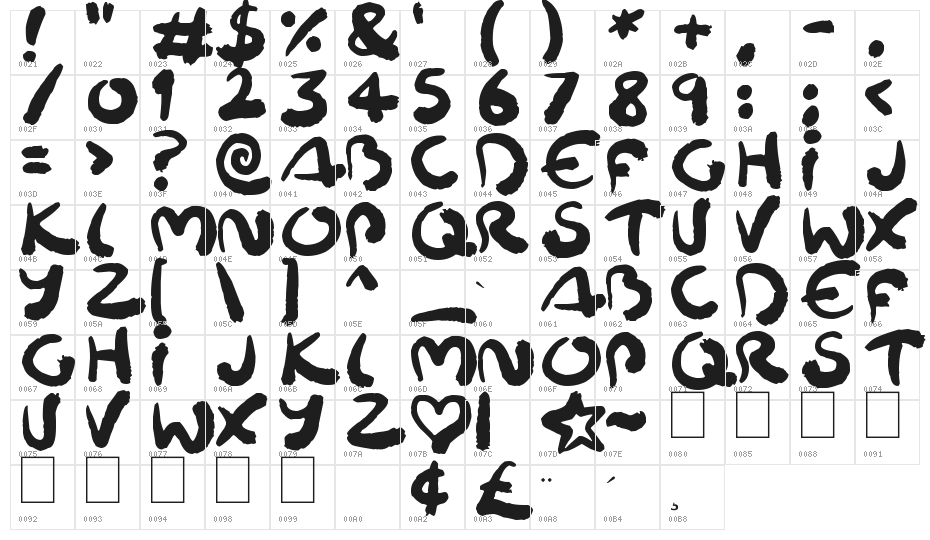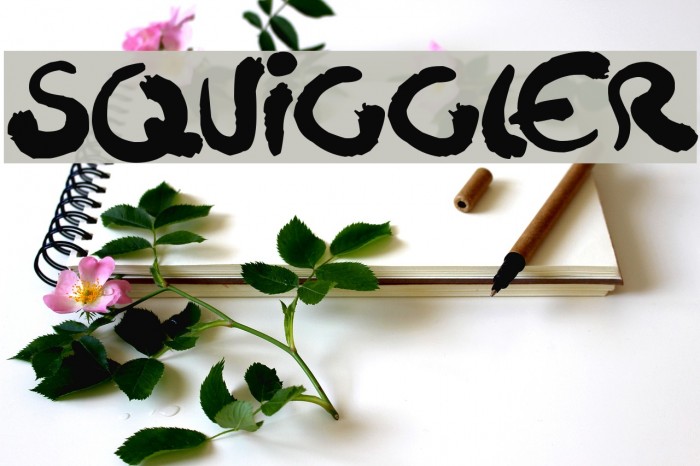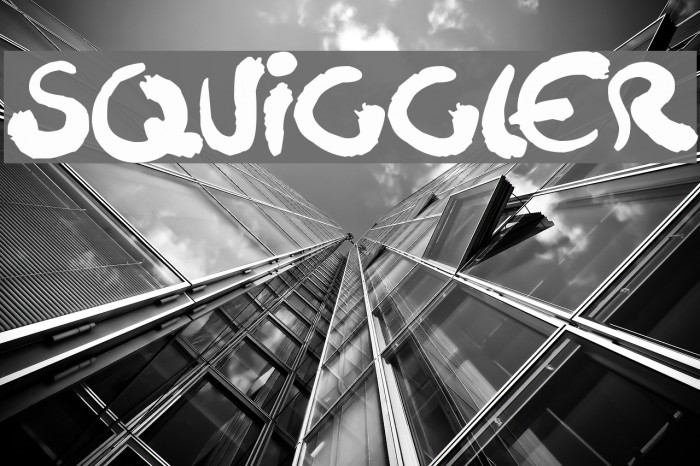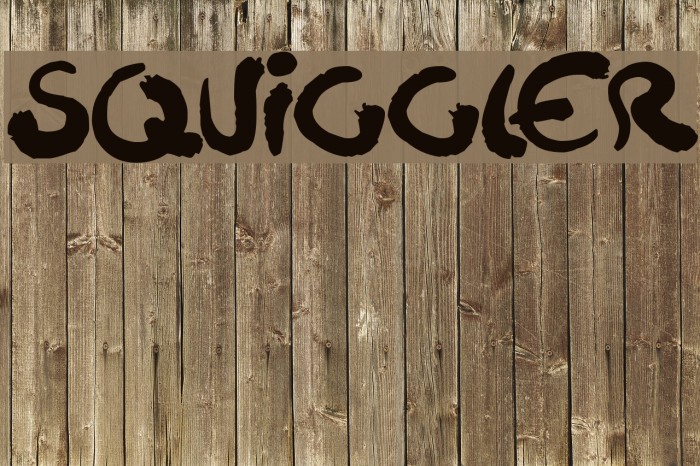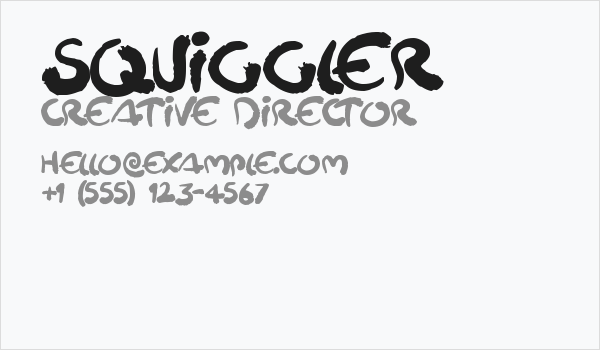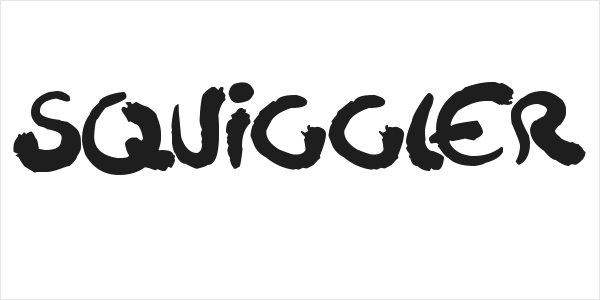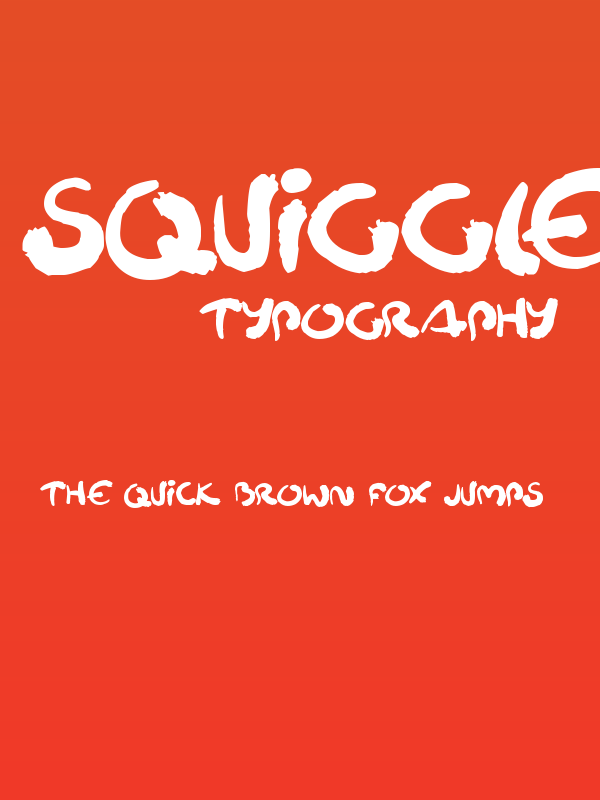
Squiggler Font
Squiggler Description
This font features a bold, expressive style with thick, brush-like strokes that give it a dynamic and energetic appearance. The characters are irregular and have a hand-drawn quality, adding a sense of movement and spontaneity. The uppercase and lowercase letters are distinct yet maintain a cohesive look, while the numerals and special characters follow the same artistic theme. The overall design is playful and eye-catching, making it suitable for creative and informal applications.
| Proposed Projects | Ideal for posters, artistic projects, branding for creative industries, and any design requiring a bold, expressive touch. |